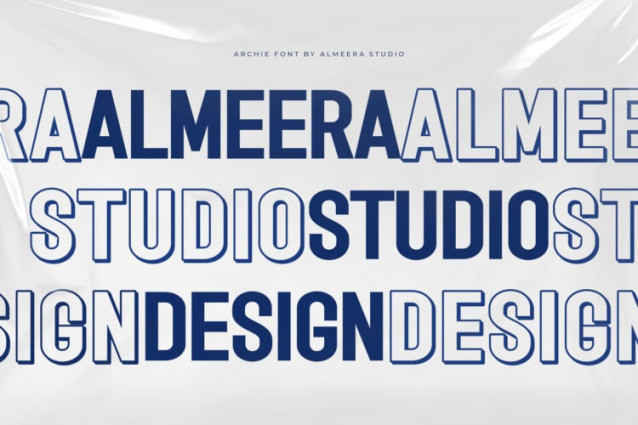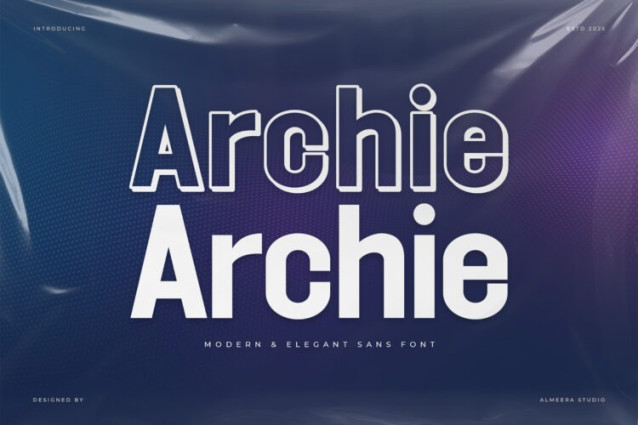
Archie Font
Archie Font is a contemporary sans-serif font that blends utility with style. With crisp lines and a versatile design, Archie is suitable for editorial headlines, web interfaces, product packaging, and fashion campaigns. It offers clarity, charm, and character in every letterform.